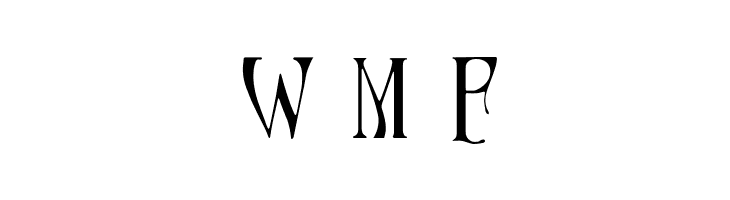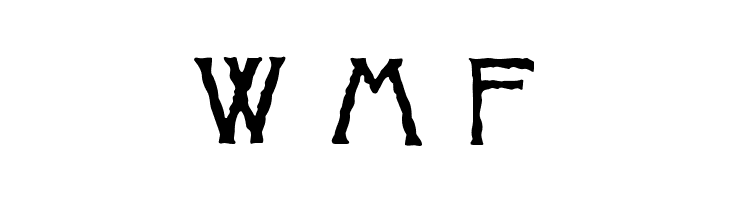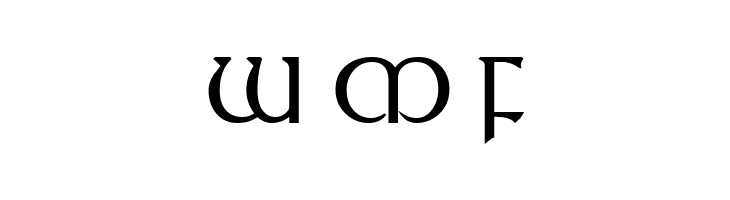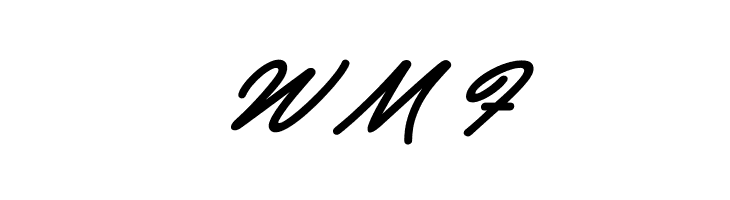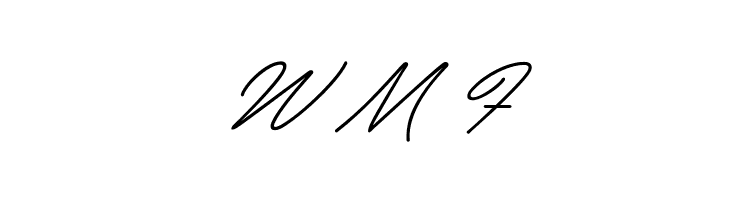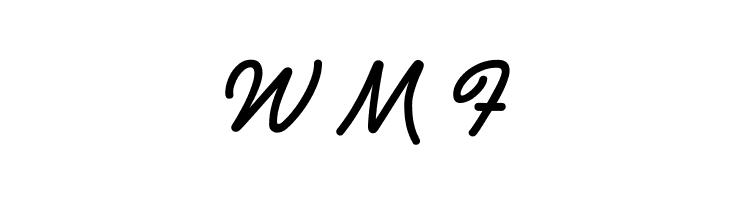
An elegant and artistic font with tall, slender letterforms and intricate detailing.
A distressed, hand-drawn font with jagged edges and a rough texture.
A classic script font with smooth, flowing curves and a handwritten aesthetic.
An elegant script font with intricate swashes and flowing letterforms.
A bold, italic script font with a fluid, handwritten style.
A flowing, cursive script font with elegant, connected strokes and an italic style.
A bold, cursive script font with fluid, handwritten-style letterforms.
A lively and elegant script font with fluid, connected letterforms.